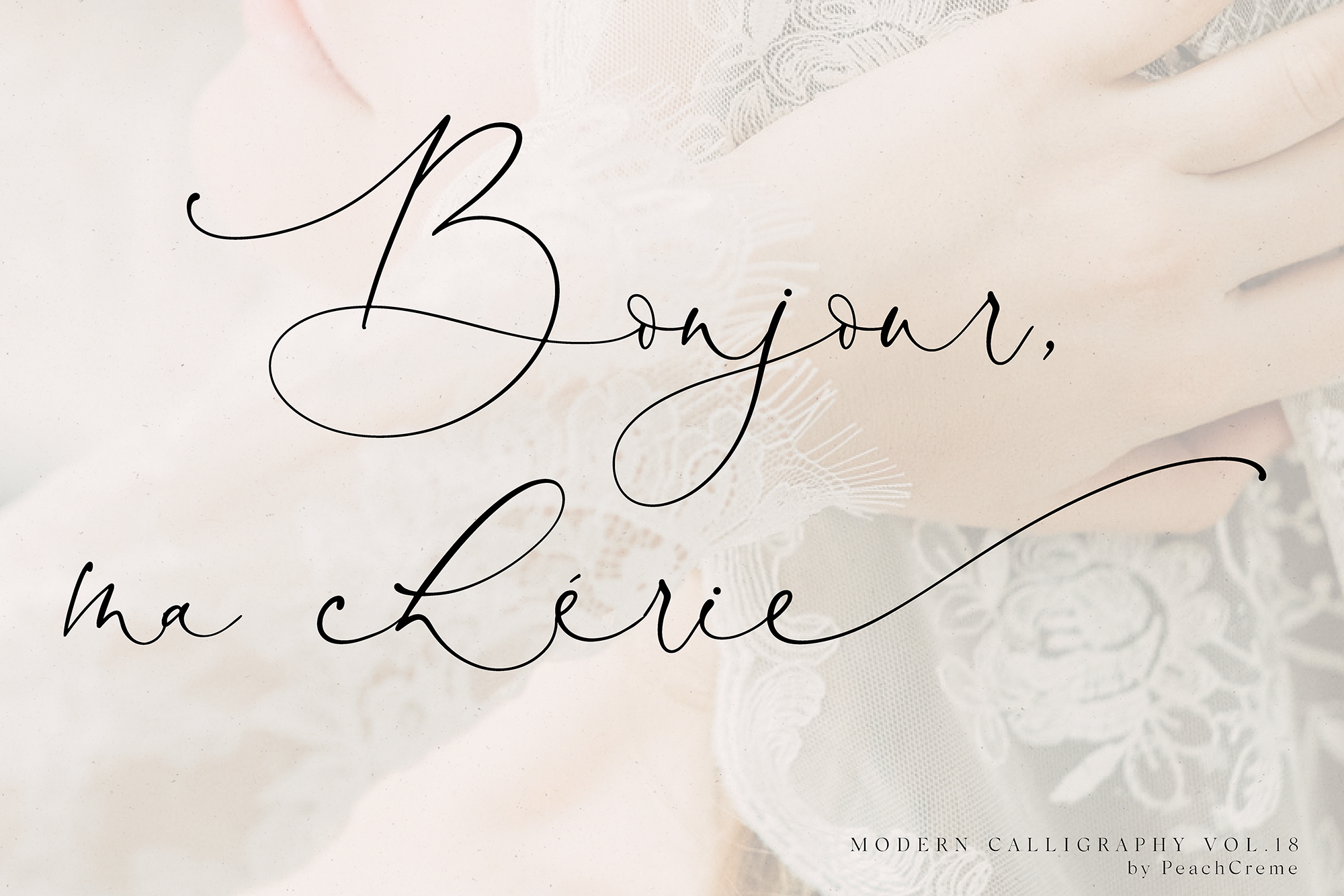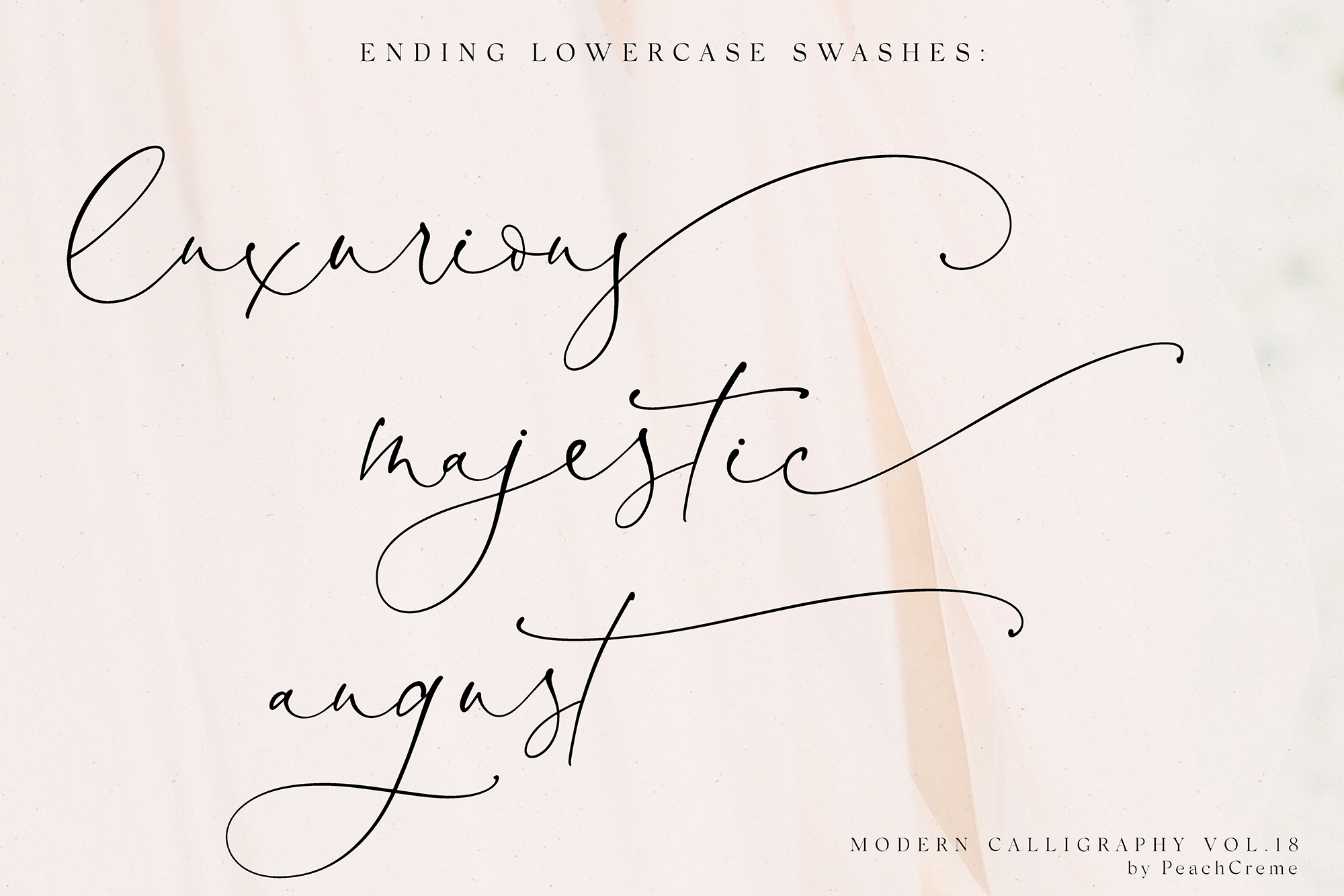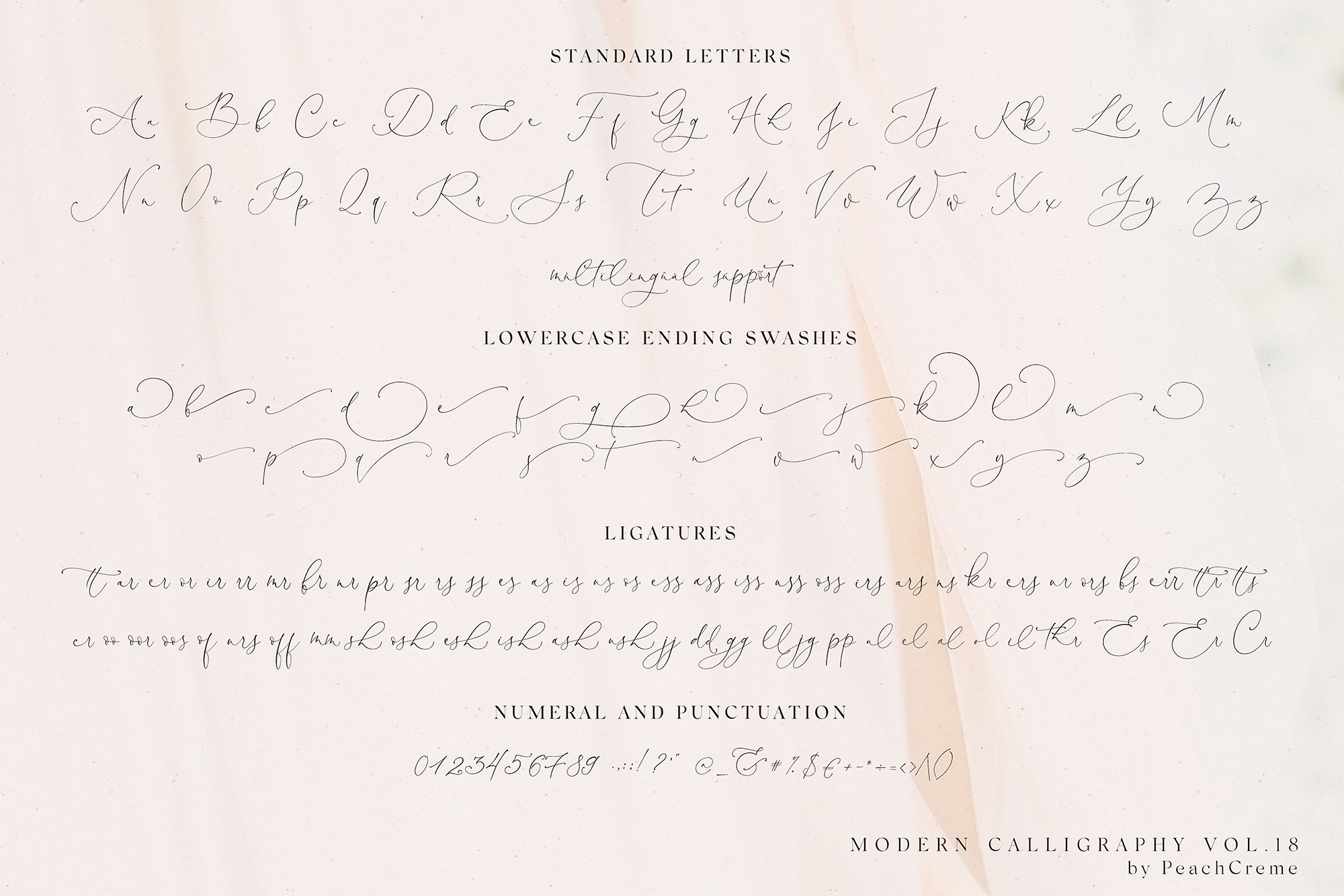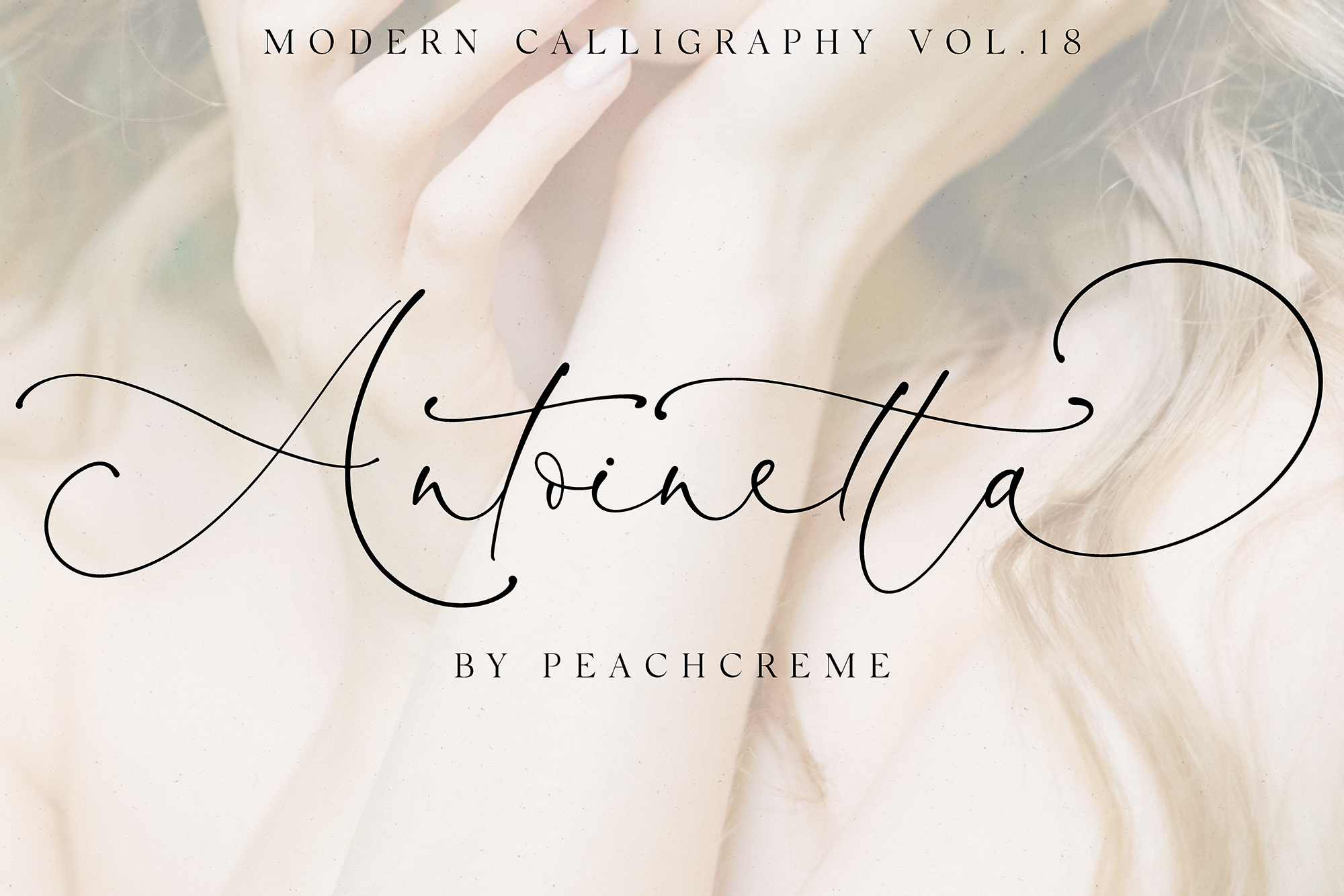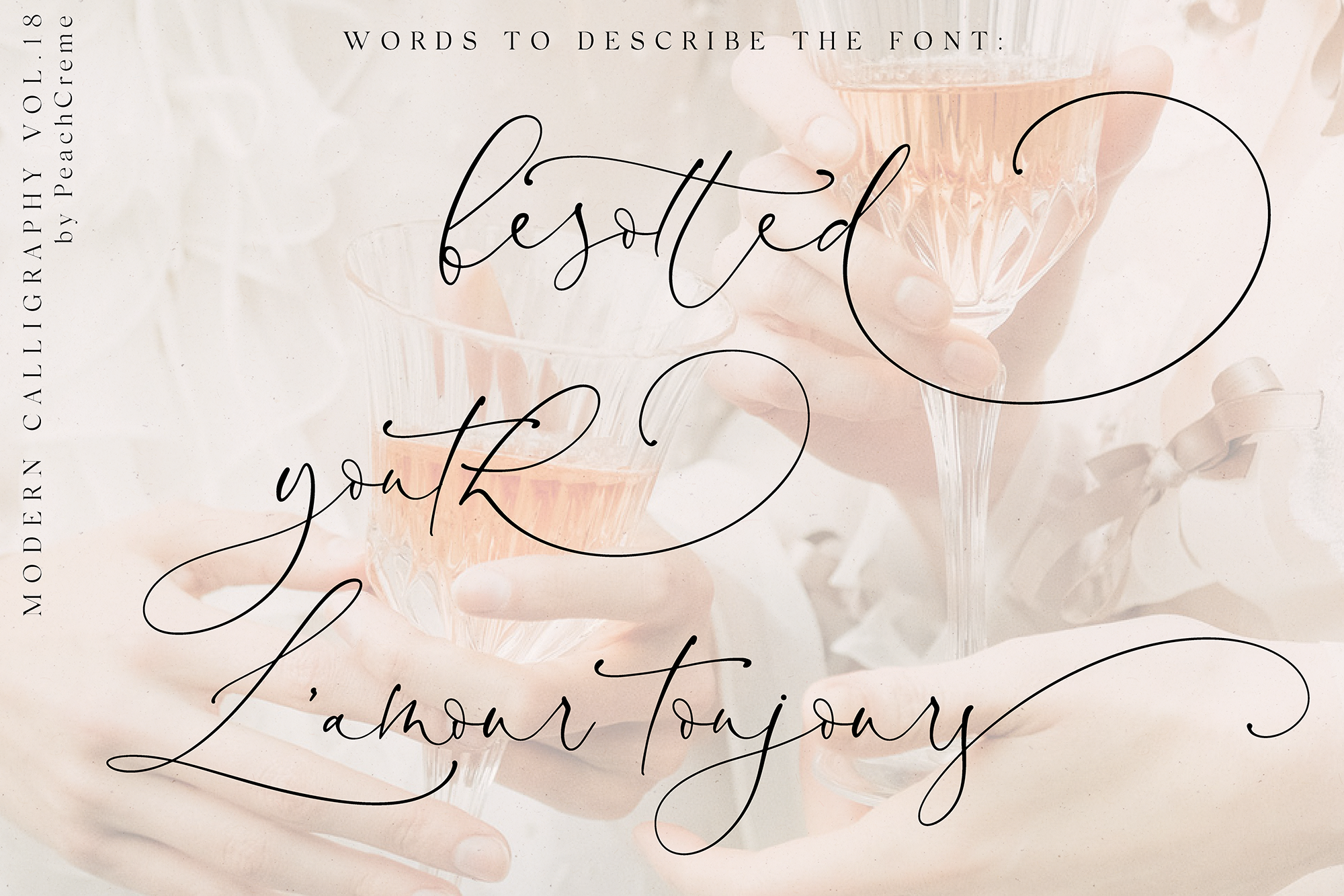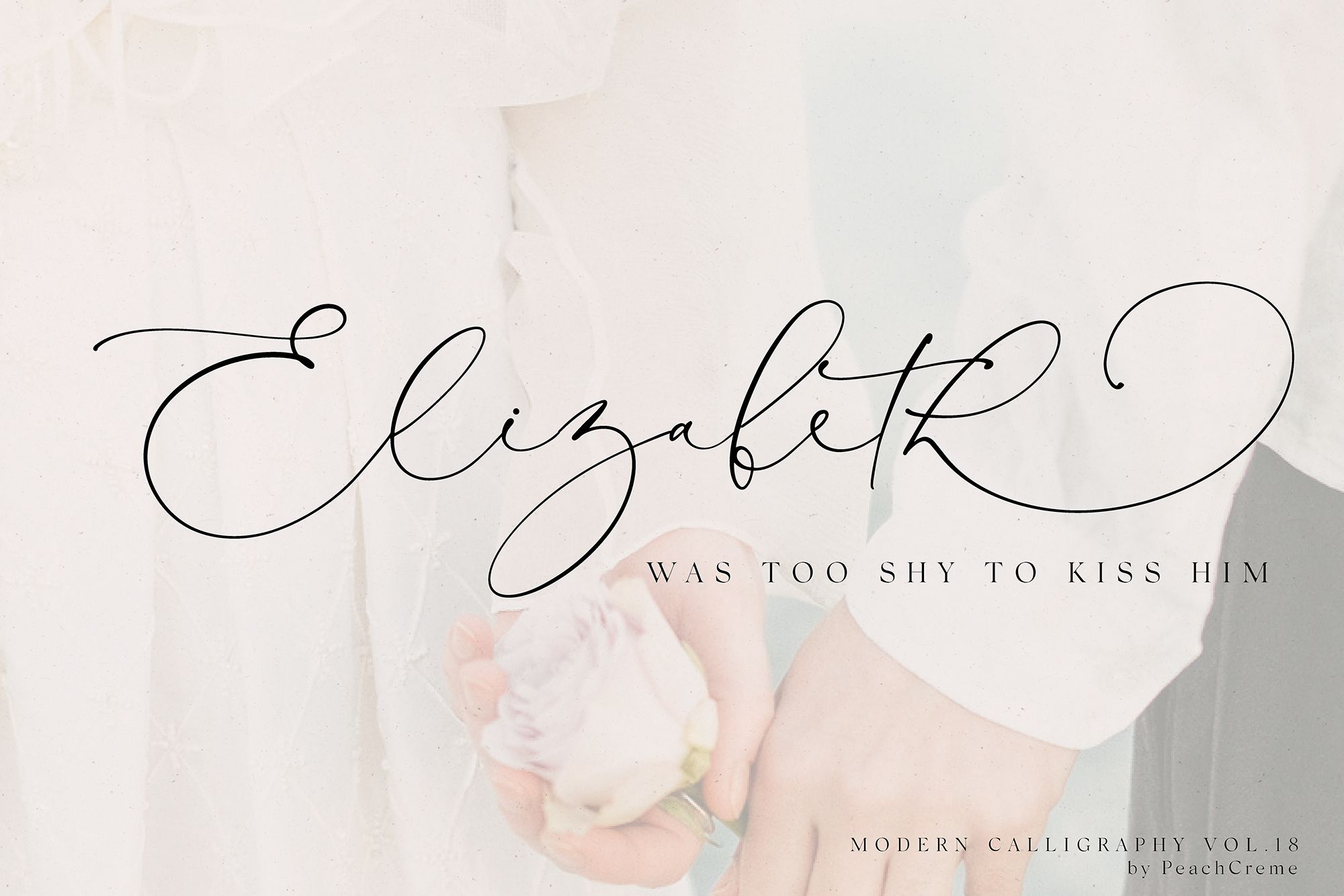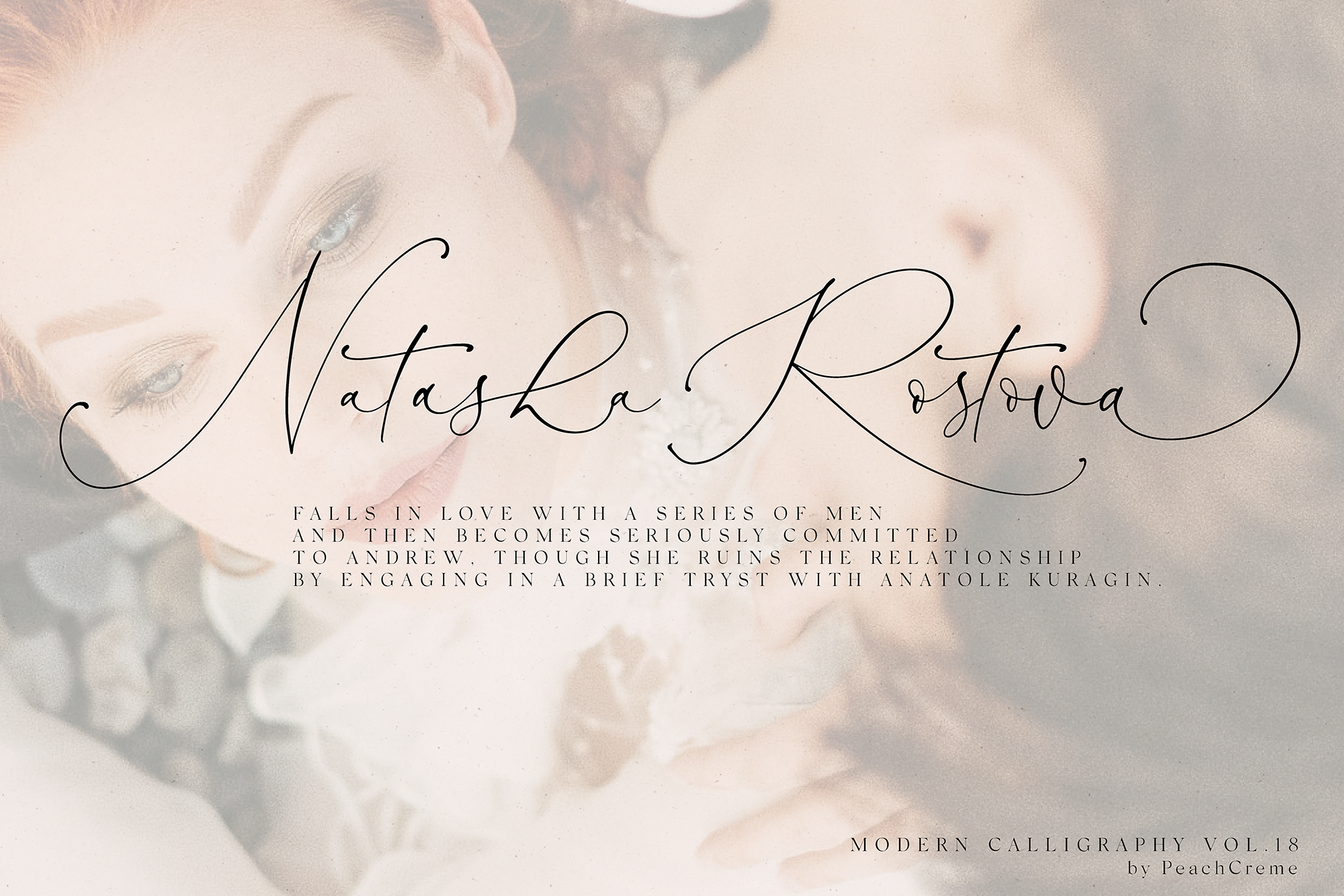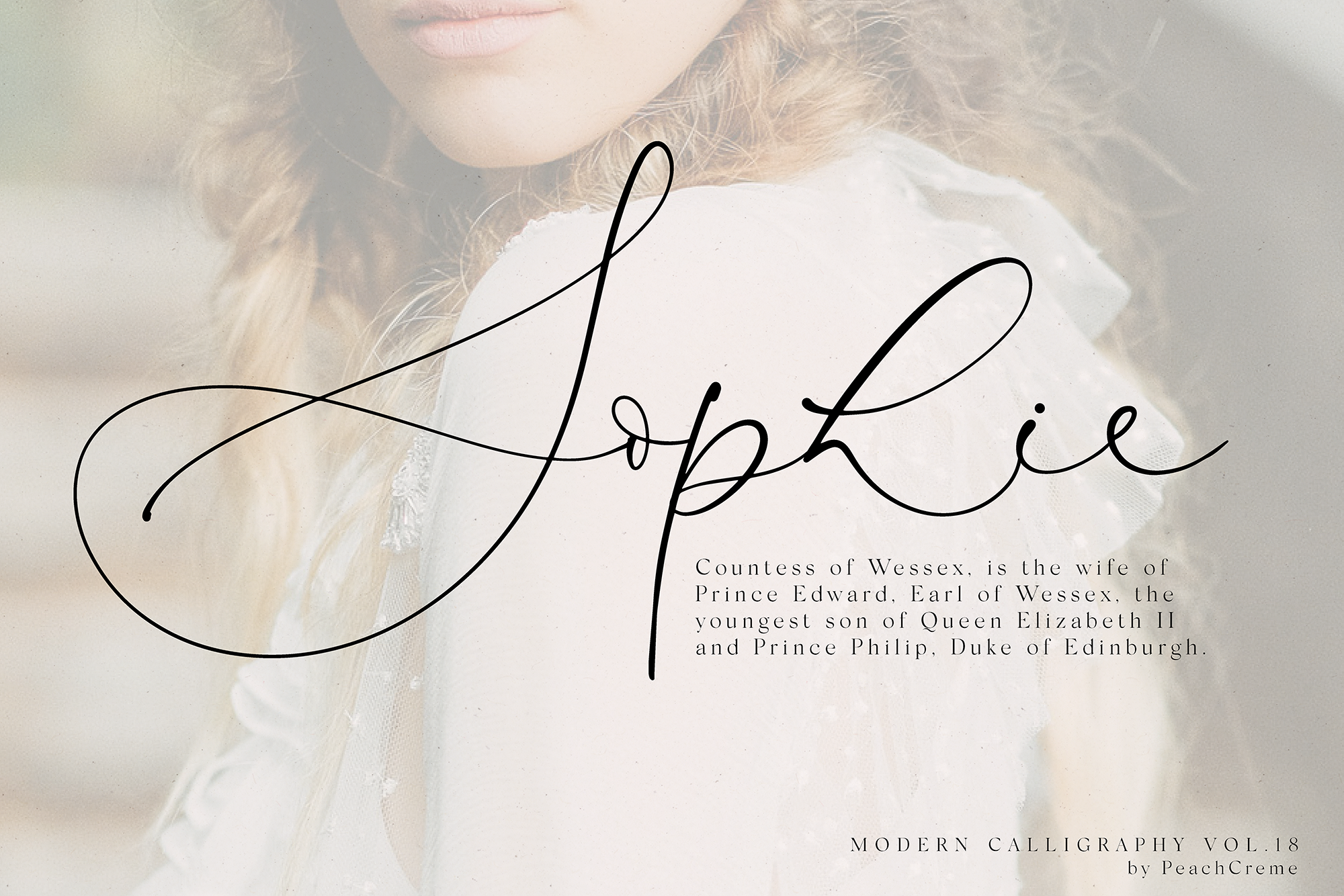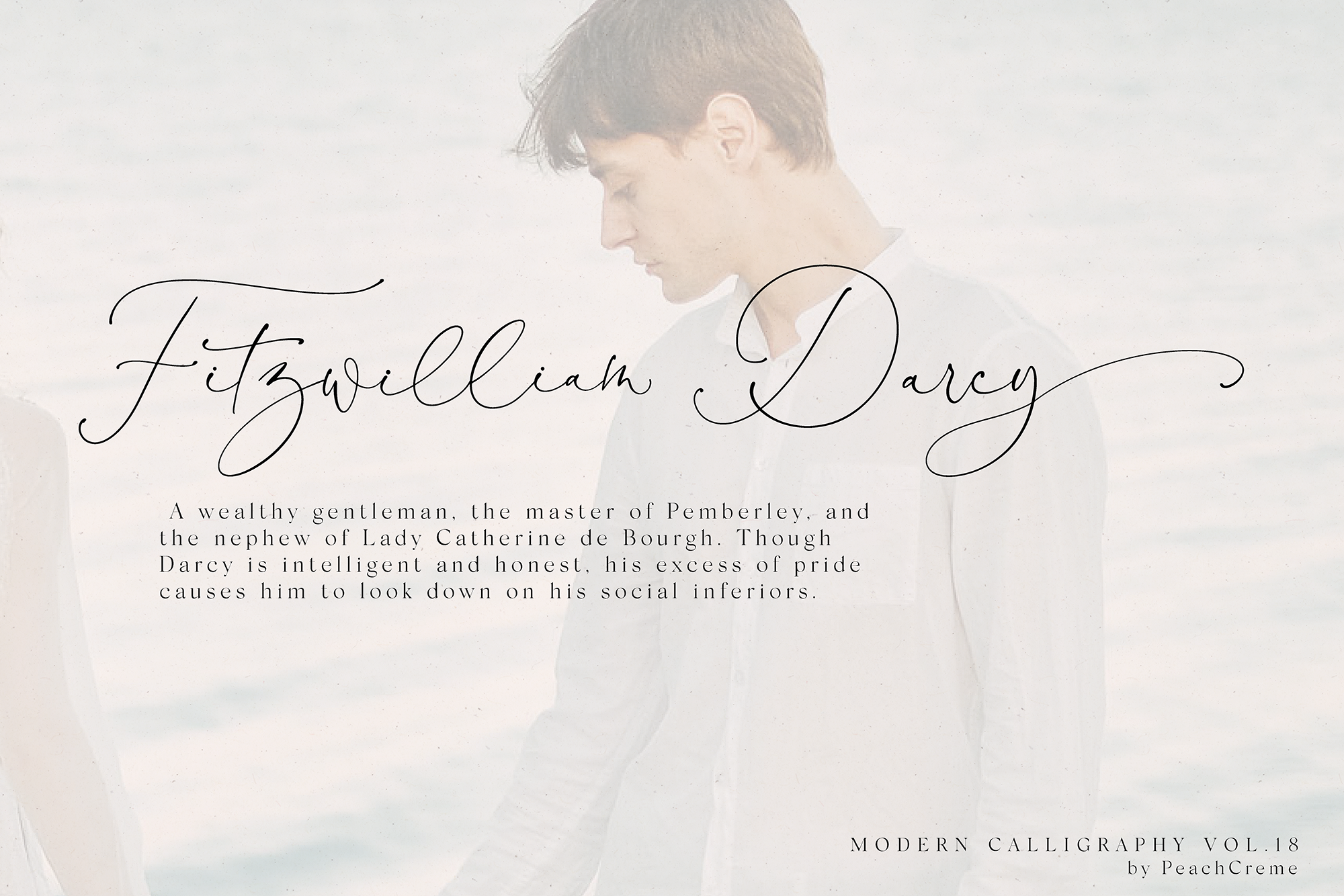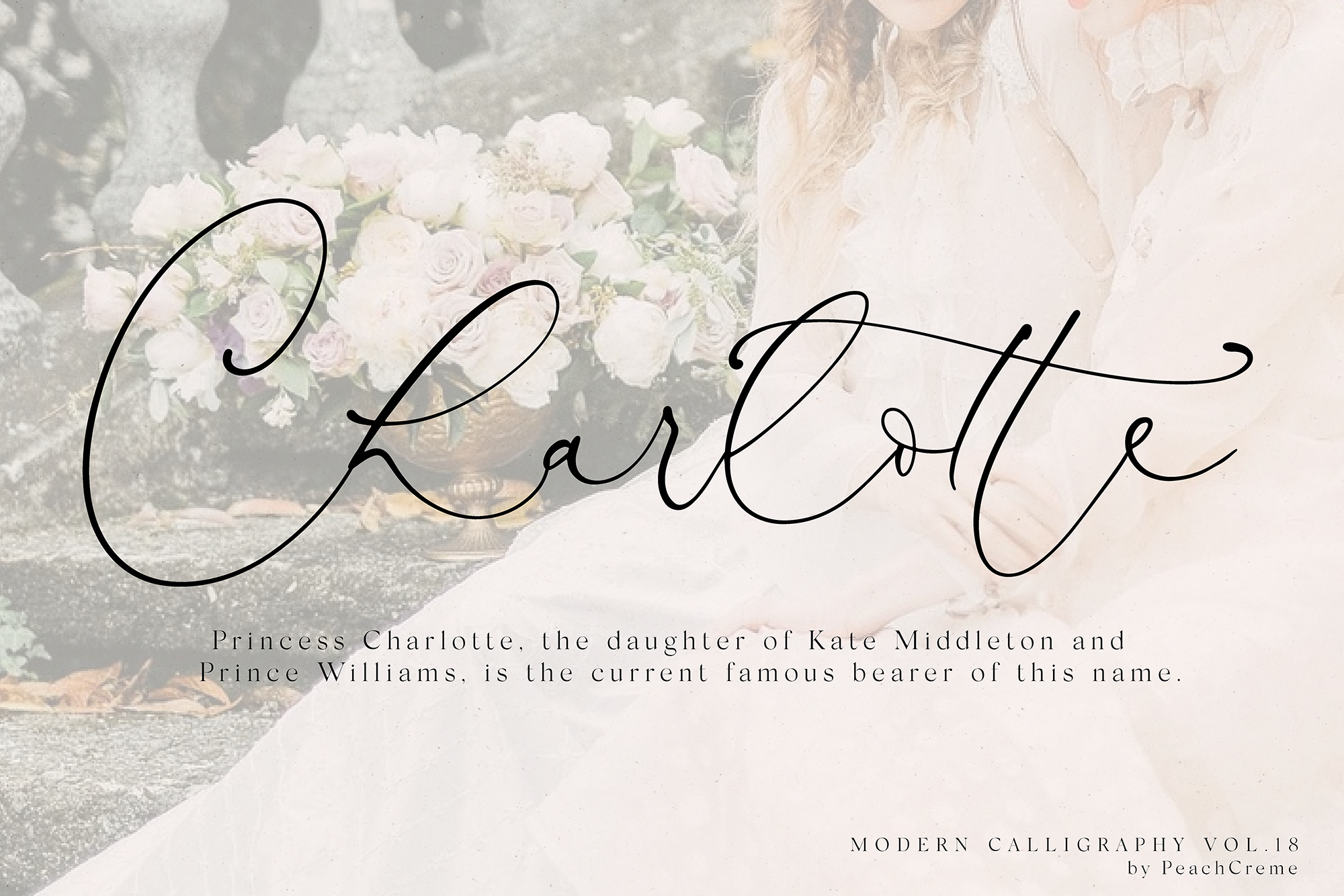
Antoinette Modern Script
LUXURY FINE ART TYPOGRAPHY VOL.18
Antoinette is a light, lovely, crème de la crème modern calligraphy font with playful letters. It is perfect for branding, wedding invites and cards.
Antoinette includes full set of gorgeous uppercase and lowercase letters, numerals, a large range of ligatures and standard punctuation. All lowercase letters include ending swashes. Each swash has own trajectory.